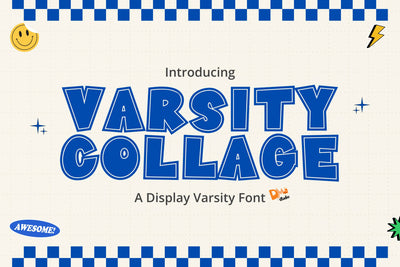
Varsity Collage
Varsity Collage – Bold & Athletic Display Font
Varsity Collage is a bold and dynamic display font inspired by classic collegiate and sports typography. With its strong, structured letterforms and athletic style, this typeface is perfect for team branding, school logos, varsity jackets, posters, merchandise, and any project that needs a powerful and sporty touch.
- Classic Varsity-Inspired Design: Strong and structured lettering for an authentic collegiate look.
- Perfect for Sports & School Themes: Ideal for team logos, university branding, athletic wear, and event posters.
- Versatile & Eye-Catching: Great for headlines, apparel, and motivational designs.